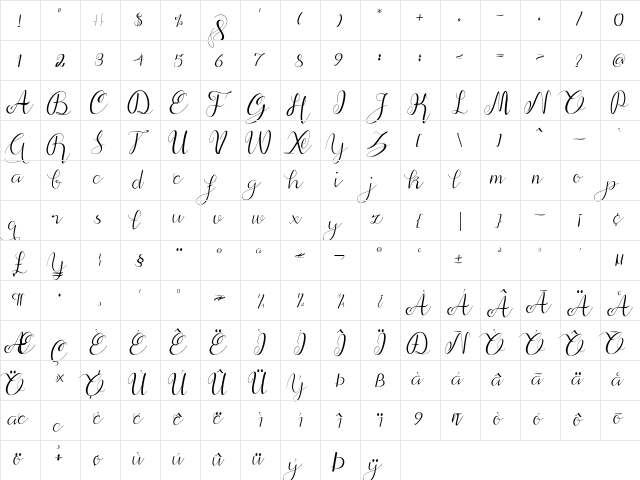
alif script
| Style | script |
| Foundry | afredo.fk |
| Designer | afredo.fk |
Design Context for alif Typeface
alif flows with the natural rhythm of handwritten lettering, making it ideal for designs that call for warmth and personal expression.
Font Pairing: Combine alif with a simple geometric sans for maximum contrast — the tension between flowing curves and clean structure is a classic typographic pairing.
Pro Tip: Pair alif with a clean sans-serif for supporting text. The contrast between fluid script and geometric structure creates an elegant typographic hierarchy.